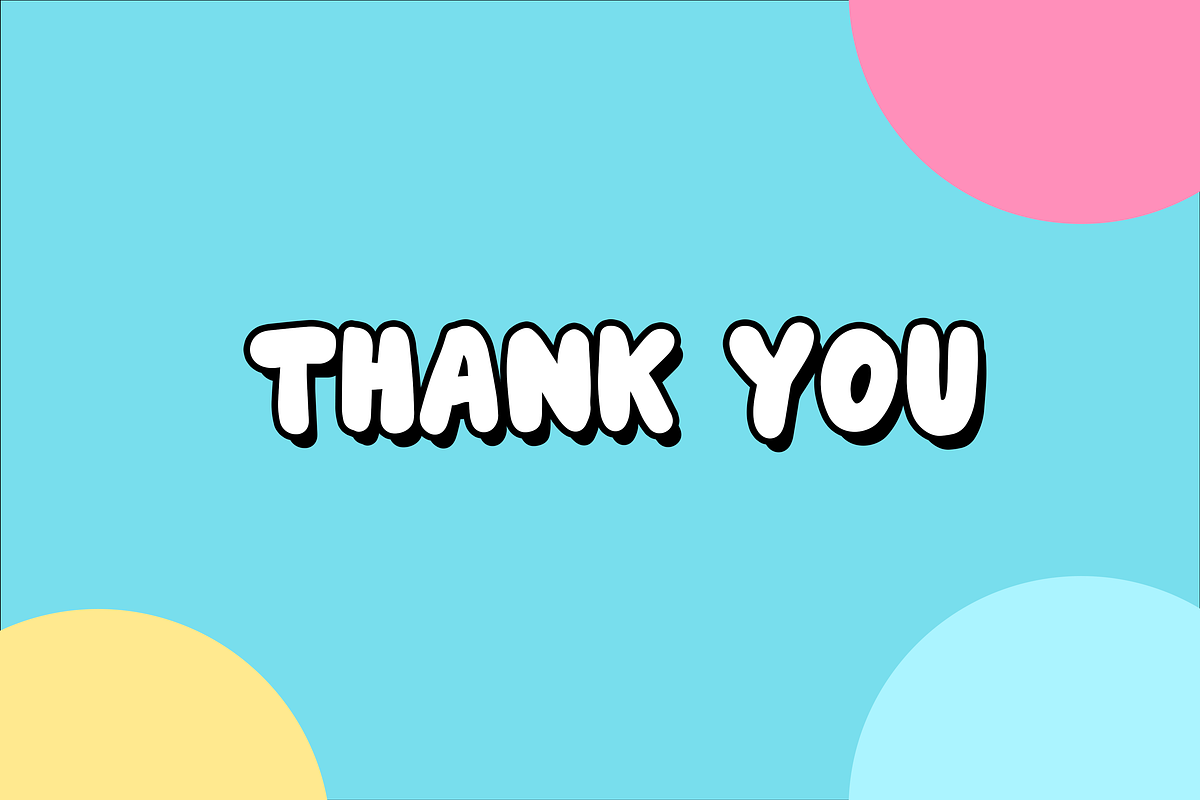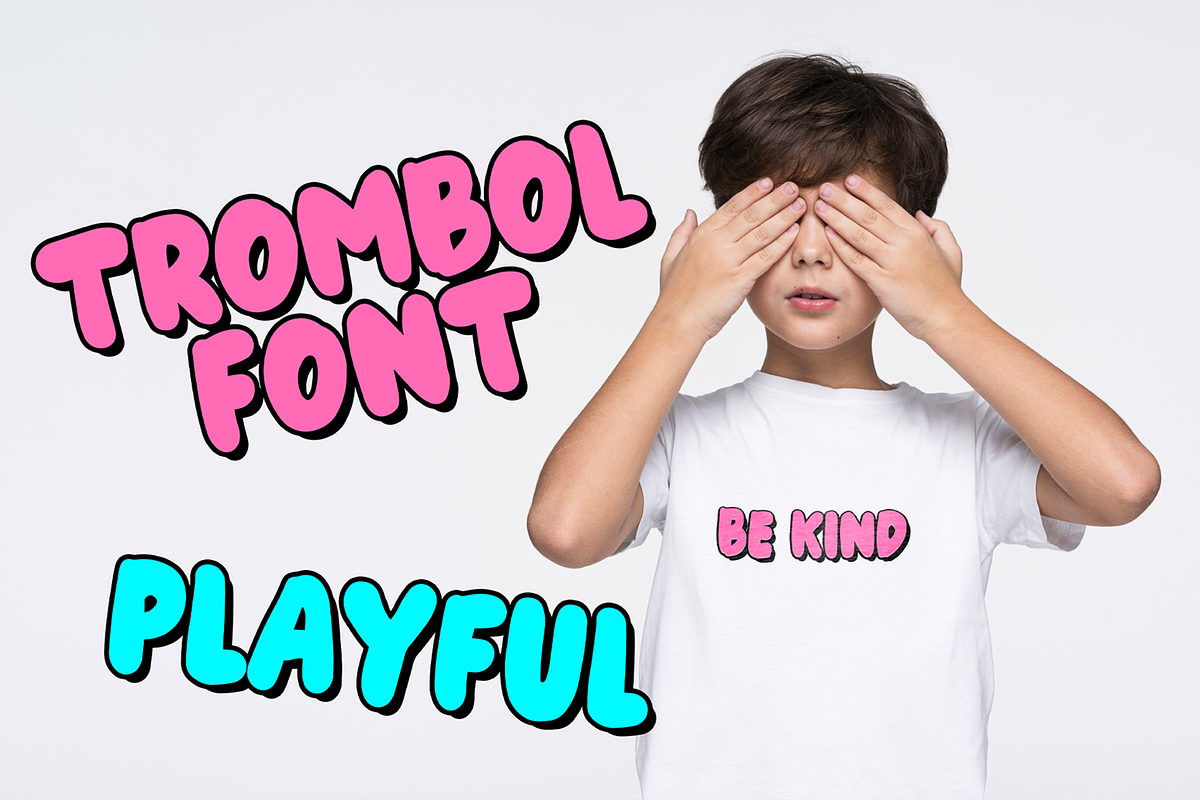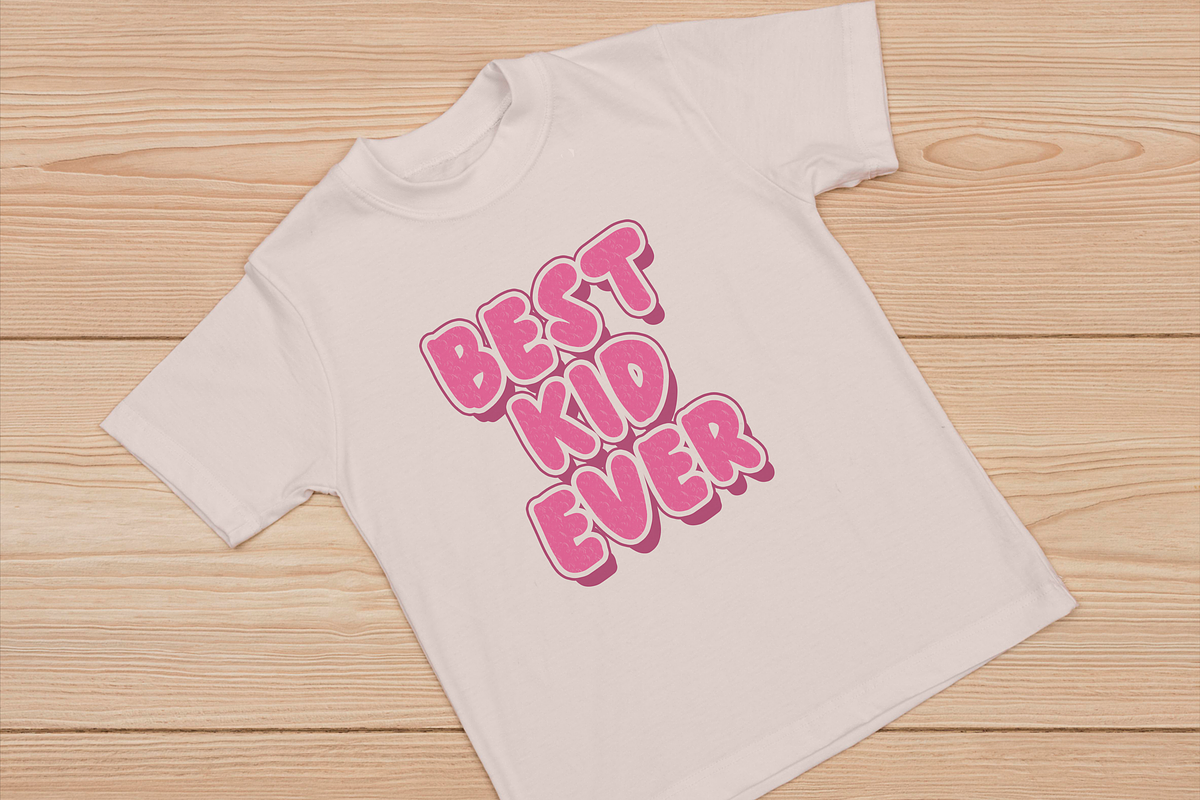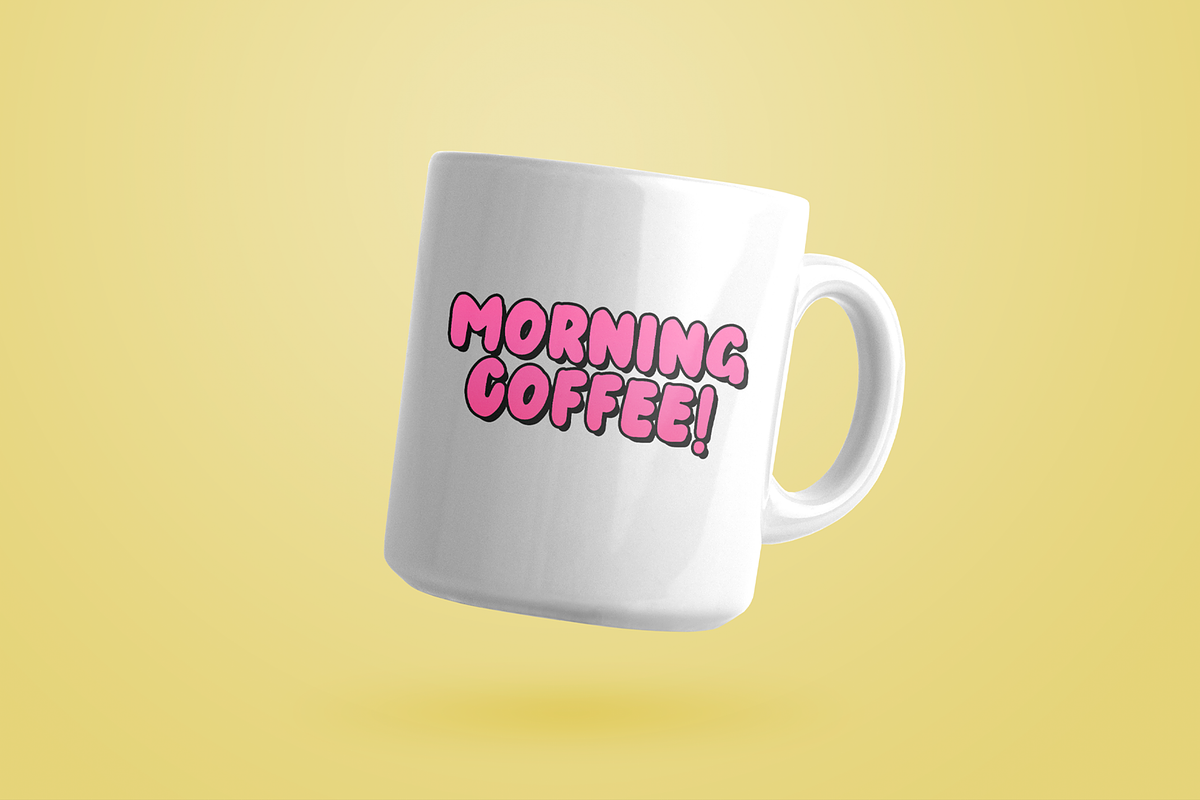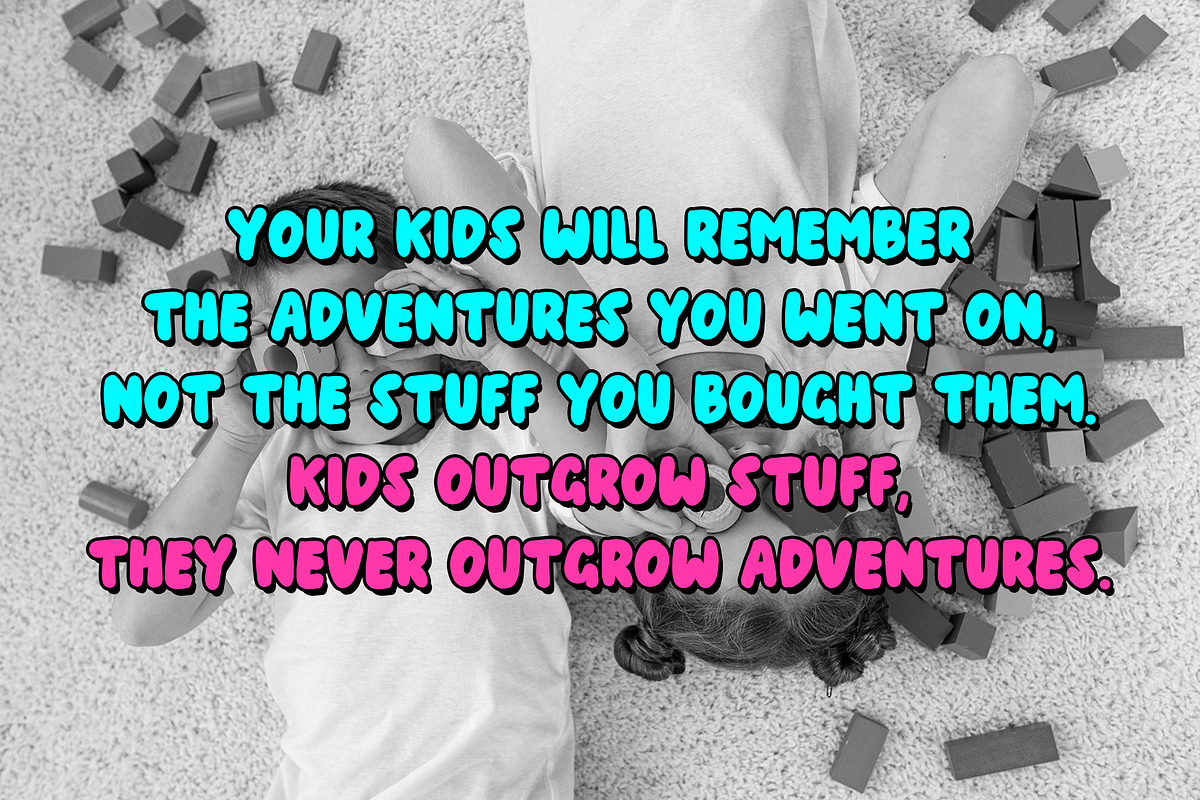
Trombol - A Playful Handwritten Font
Introducing, Trombol - a playful handwritten font. Awesome Everyday will be perfect for stickers, greeting cards, logos, posters or anything that requires a fun and happiness look!